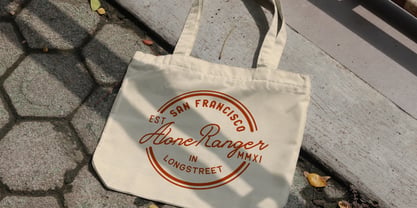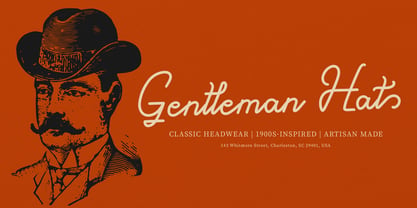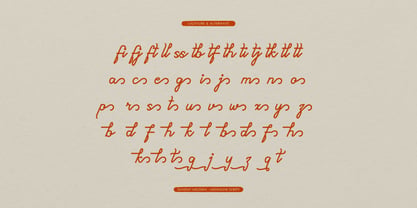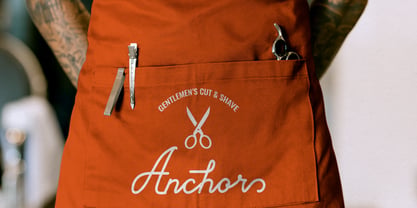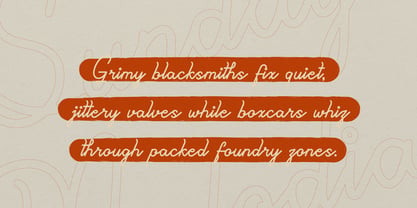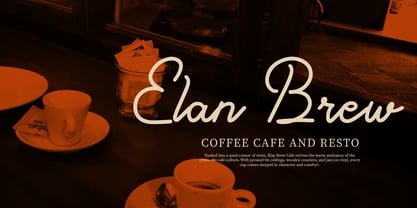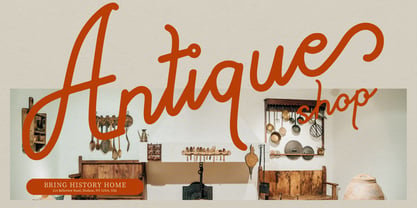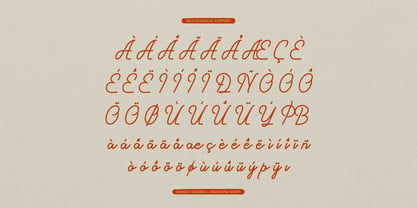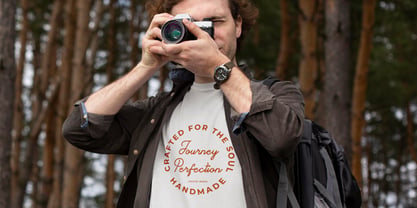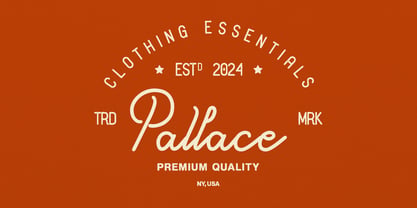
Sunday Melodia
Sunday Melodia | Monoline Script Font, from Gracetypestudio, suitable for any projects such as: logos, branding projects, homeware designs, product packaging, mugs, quotes, posters, shopping bags, t-shirts, book covers, name card, invitation cards, greeting cards, label, photography, watermark, special events, and all your other lovely projects that need a Monoline Script Font taste.
• Regular and Italic
• Alternate and Ligature
• Fonts include multilingual support